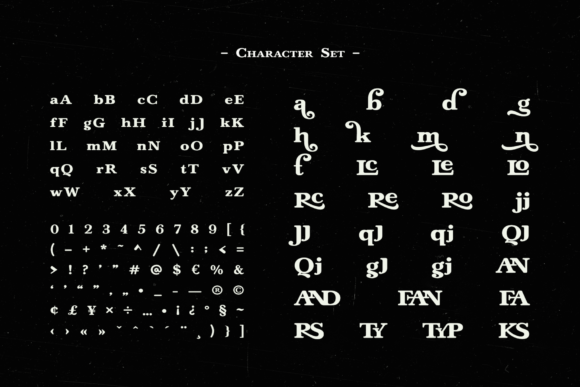
Introducing Switch Rhyme Font: A Timeless Serif Elegance
In the realm of typography, few fonts manage to strike a balance between classic sophistication and modern versatility. Switch Rhyme, a serif font, stands out as a remarkable exception. Its design masterfully intertwines traditional elegance with contemporary sensibilities, making it an ideal choice for a wide range of creative projects. This article explores the nuances of Switch Rhyme, highlighting its features, applications, and the unique charm it brings to both print and digital media.
The Essence of Switch Rhyme
Switch Rhyme is characterized by its refined letterforms, which boast graceful curves and distinctive serifs. These elements collectively evoke a sense of tradition and sophistication, reminiscent of classic serif fonts from bygone eras. However, Switch Rhyme also incorporates subtle design cues that align with modern aesthetic sensibilities, ensuring it remains relevant and engaging in today’s fast-paced digital landscape.
Design Features
One of the standout features of Switch Rhyme is its thoughtful design. The font includes both regular and italic styles, significantly expanding its versatility. This dual offering allows designers to employ Switch Rhyme in a variety of contexts, from the body text of a novel to the headings of a contemporary website. The regular style exudes a sense of stability and tradition, while the italic style adds a dynamic, expressive flair.
Refined Letterforms
The letterforms of Switch Rhyme are meticulously crafted, with attention to detail that results in a harmonious and balanced appearance. The serifs, while classic in nature, are subtly refined to ensure legibility across various sizes and applications. This focus on readability makes Switch Rhyme an excellent choice for lengthy texts, as well as for headlines and titles where clarity and impact are paramount.
Versatility Across Mediums
Switch Rhyme’s adaptability extends beyond its two font styles. Its design is optimized for both print and digital applications, ensuring that it retains its elegance and legibility whether used in a magazine, on a website, or on social media. This versatility is invaluable for designers who seek a cohesive visual identity across multiple platforms.
Applications of Switch Rhyme
The applications of Switch Rhyme are vast and varied. Its classic yet contemporary design makes it suitable for a multitude of projects, including:
- Print Media: Switch Rhyme is ideal for use in magazines, books, newspapers, and advertising materials. Its serif design ensures that text is readable and engaging, making it perfect for both body text and headlines.
- Digital Media: For websites, blogs, and digital publications, Switch Rhyme offers a sophisticated aesthetic that enhances user experience. Its legibility on screens, combined with its stylish appearance, makes it a top choice for digital content creators.
- Branding and Packaging: The font’s elegance and versatility make it suitable for branding and packaging projects. It can convey a sense of luxury, tradition, or innovation, depending on the context in which it’s used.
Why Choose Switch Rhyme?
Switch Rhyme stands out in the world of typography for several reasons:
- Timeless Appeal: Its classic design ensures that it remains relevant and stylish, regardless of current trends.
- Versatility: With both regular and italic styles, Switch Rhyme offers a range of creative possibilities.
- Legibility: The font’s careful design prioritizes readability, making it suitable for both long-form content and short-form messaging.
- Elegance: Switch Rhyme brings a touch of sophistication to any project, elevating the overall aesthetic and impact.
Switch Rhyme is more than just a serif font; it’s a versatile design tool that bridges the gap between tradition and modernity. Its refined letterforms, combined with its range of applications and timeless appeal, make it an invaluable asset for designers. Whether you’re working on a print project, a digital platform, or a branding initiative, Switch Rhyme offers the elegance, legibility, and flexibility needed to create impactful and memorable designs. By choosing Switch Rhyme, designers can imbue their work with a sense of sophistication and charm that resonates with audiences across various mediums.